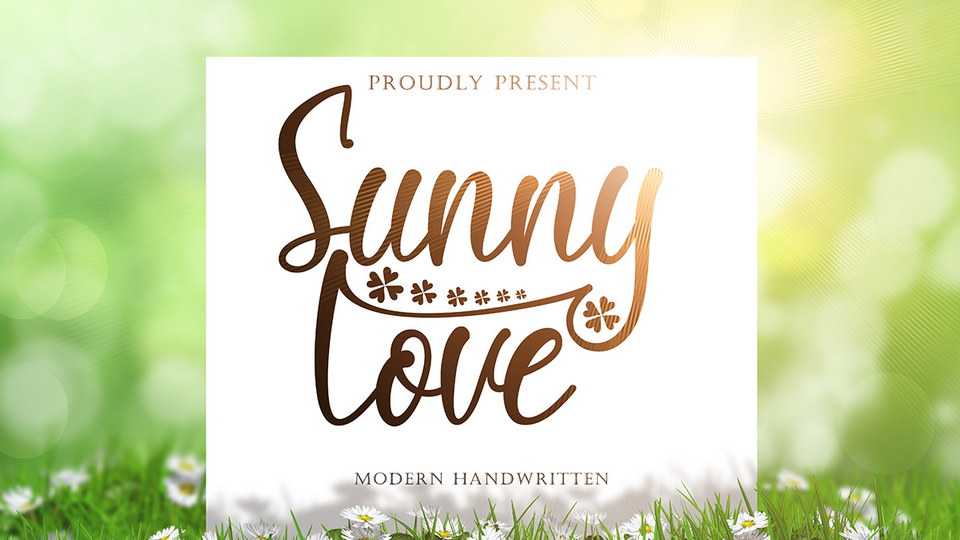
Download Sunny Love font, a beautiful handwritten typeface with decorative flourish swashes. Sunny Love is perfect for your holidays, summer, spring, mother day, father day, logos and more.